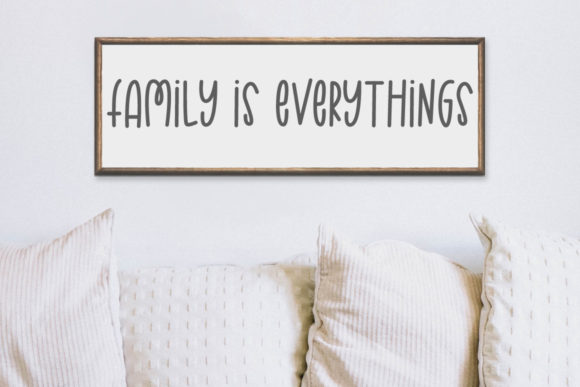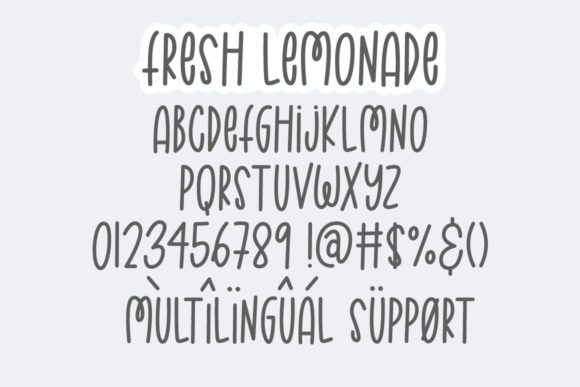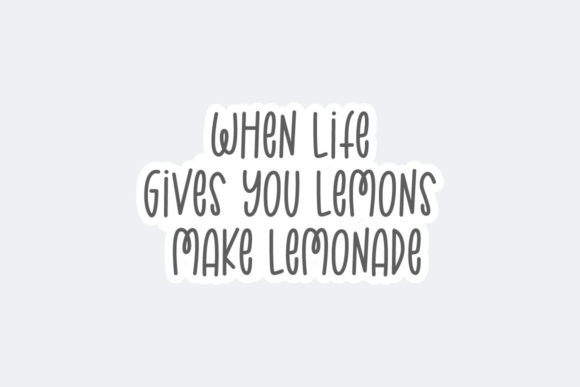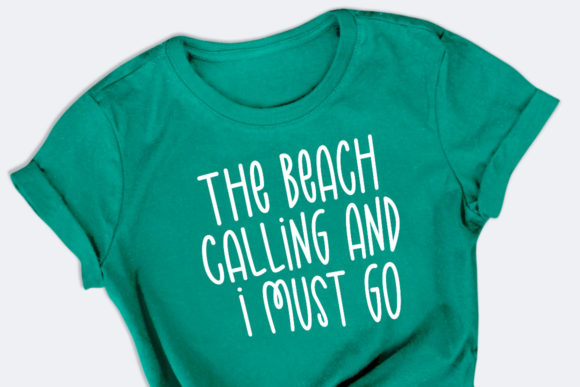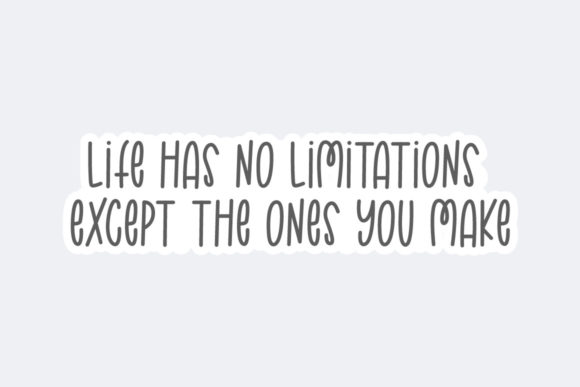
Fresh Lemonade Font
About Fresh Lemonade Font
Fresh Lemonade is a sweet, thin and simple lettered handwritten font. Whatever the topic, this font will be a wonderful asset to your font library, as it has the potential to enhance any creation.